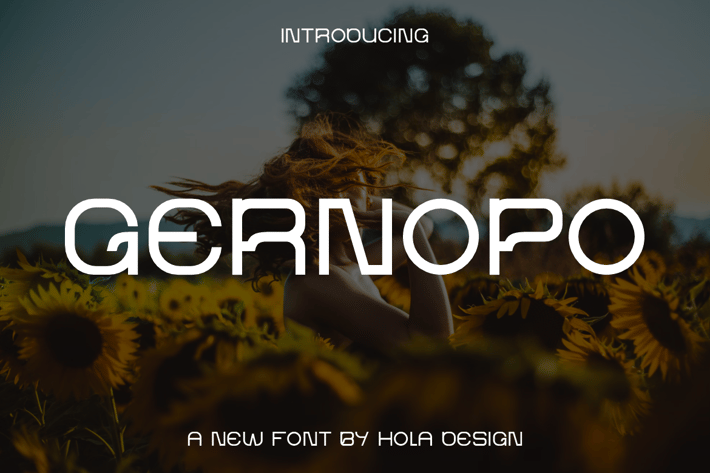
Gernopo - Clean & Modern Font
Gernopo - Clean & Modern Font Font is unique . Ready to use for your design like labeling, movie sceen, poster, movie title, gigs, album covers, logos, and much more.